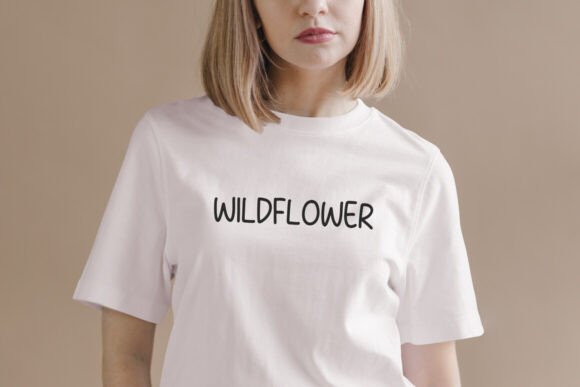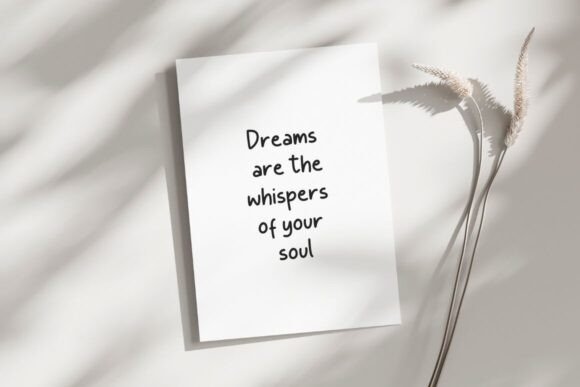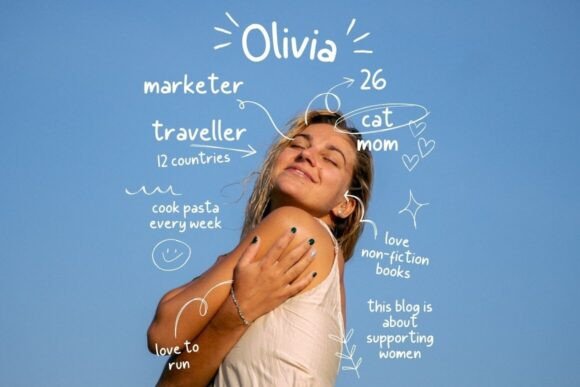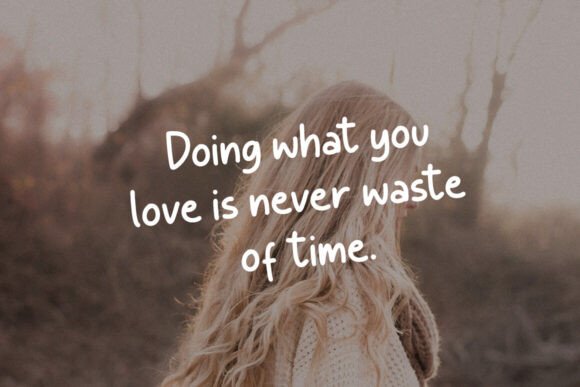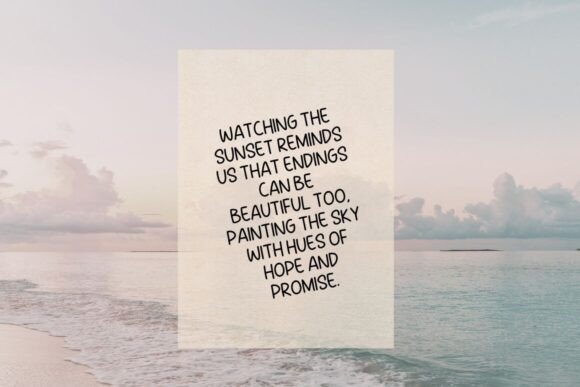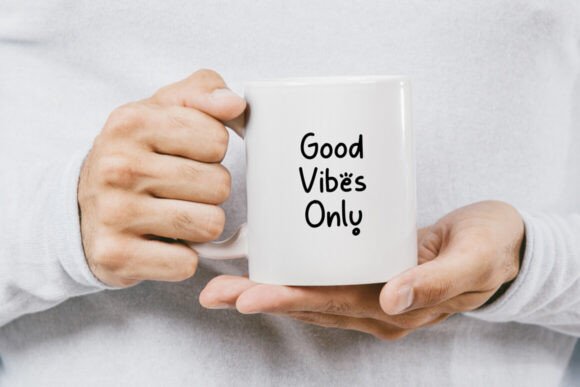
Introduction to Pine Words Font
As a designer, have you ever stumbled upon that one perfect font that makes your creative project come alive? For me, that moment happened when I discovered the Pine Words Font. Its adorable charm and delightful design elements instantly captured my heart, and I knew I had to share it with the world.
The Pine Words Font is a game-changer for designers, offering a high-quality design resource that’s perfect for any creative project. With its transparent background and soft, gentle feel, it’s a versatile font that can be used for everything from school projects to home decoration. Whether you’re a seasoned designer or just starting out, this font is a valuable addition to your design arsenal, and the best part? It’s available for free download.
Key Features of Pine Words Font
- High-quality design resource ideal for creative projects, including logos, branding, and digital art.
- Features a transparent background, making it perfect for overlaying on images or videos without the need for manual editing.
- Includes a wide range of characters, including uppercase and lowercase letters, numbers, and special characters, making it a versatile design resource.
- Designed at 300 DPI, ensuring crisp and clear readability, even when scaled up or down.
- Perfect for use in digital art, graphic design, and other creative projects where a unique and stylish font is required.
Honest Review: Pine Words Font
As a designer, I’m always on the lookout for high-quality design resources to elevate my creative projects. Recently, I had the chance to experiment with the Pine Words Font, and I must say, it’s been a pleasant surprise.
What works well: ✨ The Pine Words Font has a beautiful, modern aesthetic that’s perfect for minimalist designs. The transparent background makes it easy to layer over other elements, and the font’s high quality ensures that it looks crisp and clean even at larger sizes.
Here are some of my favorite features:
- Customizable: The font comes in a range of weights and styles, giving me the flexibility to tailor it to my design needs.
Limitations: ⚠️ While the Pine Words Font is overall a great design resource, I did encounter some issues with consistency across different platforms. The font sometimes displayed slightly differently on Windows versus Mac, which can be a problem if you’re working on a project that requires precise typography.
Overall impression: I’m impressed with the Pine Words Font, and I’d definitely recommend it to designers looking for a high-quality, modern font for their creative projects. With a little tweaking to get the consistency just right, I think this font has the potential to become a go-to resource for many designers.
Pine Words Font is a versatile design resource that can be used for a variety of creative projects, such as:
- Print materials, such as business cards and brochures
- Digital materials, such as social media graphics and presentations
Alternatives to Pine Words Font
Lato is a high-quality, modern sans-serif font that is perfect for creative projects requiring a clean and minimalist design. It’s available for free download and offers a transparent background, making it ideal for graphic designers and web developers.
Yes, the Pine Words Font is designed with a transparent background, making it easy to use with any color or design element. This feature allows for a seamless integration into your design projects, giving you more creative freedom.
Q: What is the recommended resolution for using the Pine Words Font?
For high-quality results, we recommend using the Pine Words Font at a minimum resolution of 300 DPI. This will ensure that the font appears crisp and clear in your design projects, whether they are printed or displayed digitally.